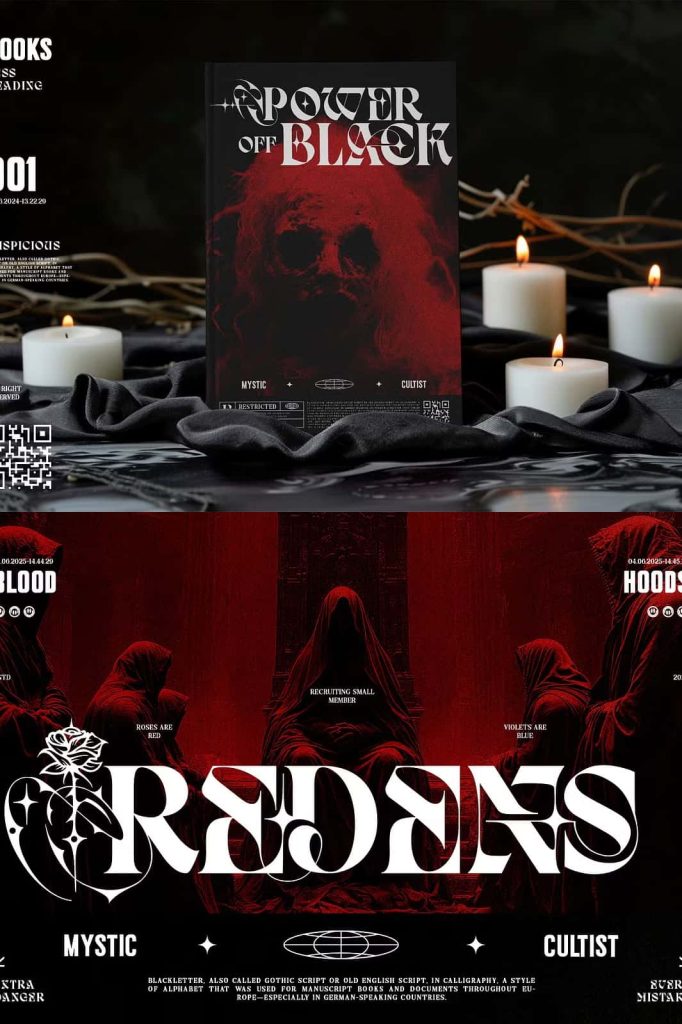
Dark Reborn Typeface
The Dark Reborn typeface introduces a striking fusion of Gothic heritage and modern typographic elegance. Designed to capture the dramatic beauty of traditional Blackletter calligraphy while embracing contemporary design principles, Dark Reborn transforms classic lettering into a bold and versatile display typeface. This font carries a powerful visual presence that allows designers to create typography filled with character, intensity, and historical influence.
Created by Alit Design Studio, Dark Reborn represents a careful balance between tradition and innovation. The designers drew inspiration from centuries-old Gothic calligraphy and reinterpreted those historic forms with modern structure and clarity. The result is a serif–Blackletter hybrid that feels both timeless and contemporary, making it suitable for a wide range of creative applications.
Dark Reborn invites designers to explore a new dimension of typographic artistry. Instead of simply replicating historical lettering, the typeface reinvents it with bold strokes, refined proportions, and dramatic details that command attention.
A Typeface Inspired by Gothic Calligraphy
Gothic calligraphy has played a significant role in the history of typography. For centuries, scribes used Blackletter styles to write manuscripts, religious texts, and official documents across Europe. These letterforms developed distinctive characteristics, including sharp angles, dramatic contrasts, and decorative strokes.
The Dark Reborn typeface draws heavily from this rich typographic tradition. The designers studied historical Blackletter scripts and adapted their defining features into a modern font structure. By combining Gothic elements with serif typography, they created a typeface that feels authentic while remaining practical for contemporary design work.
This approach allows Dark Reborn to preserve the emotional depth and historical character of Gothic lettering while introducing smoother readability and balanced proportions. Designers can therefore use the font in modern design environments without losing the dramatic essence that makes Blackletter styles so captivating.
A Bold Hybrid of Serif and Blackletter Design
What makes Dark Reborn truly distinctive is its hybrid design. The font blends the structured clarity of serif typography with the expressive energy of Blackletter forms. This combination produces letterforms that feel powerful, elegant, and highly decorative at the same time.
Traditional Blackletter fonts sometimes appear too complex or rigid for modern layouts. Dark Reborn addresses this challenge by refining the shapes and adjusting the spacing between characters. These refinements improve readability while maintaining the strong personality associated with Gothic lettering.
The serif influence also introduces subtle balance into the design. The letterforms maintain the dramatic vertical strokes typical of Gothic scripts, but the refined serif details help guide the eye smoothly across the text. This thoughtful integration makes the font both visually impressive and practical for contemporary typography.
Designed for Dramatic Display Typography
The Dark Reborn typeface works best as a display font where its dramatic details can fully shine. Designers can use it to create striking titles, bold headlines, and memorable branding elements. Its distinctive shapes and high contrast allow it to stand out immediately within any composition.
Posters, album covers, book titles, and promotional graphics benefit greatly from the font’s strong personality. Dark Reborn communicates intensity and sophistication, making it especially effective in projects that require a bold visual identity.
The typeface also performs well in editorial layouts where designers want to introduce dramatic typographic accents. Even short phrases gain visual weight and artistic depth when rendered in Dark Reborn.
Bringing Historical Elegance into Modern Design
Dark Reborn succeeds because it bridges two distinct design worlds. On one hand, it celebrates the beauty of historic Gothic calligraphy. On the other hand, it embraces modern typography by improving structure, spacing, and usability.
This dual identity allows designers to create projects that feel both classic and contemporary. A brand can communicate heritage and sophistication while still appearing modern and relevant. The font’s bold character also helps establish strong visual storytelling in creative projects.
Designers often look for typefaces that convey emotion and identity through their shapes. Dark Reborn delivers this by combining sharp Gothic energy with elegant serif refinement. Each letter contributes to a powerful typographic voice that demands attention.
Ideal Uses for the Dark Reborn Typeface
The Dark Reborn typeface suits a wide range of creative applications, especially projects that benefit from dramatic and expressive typography. Designers frequently use it for posters, music album artwork, book covers, gaming graphics, editorial headlines, and bold branding concepts.
It also fits well within luxury branding, fashion design, and creative media where visual identity plays a central role. The typeface helps establish a distinctive mood that blends historical influence with modern sophistication.
By combining Gothic tradition with contemporary elegance, Dark Reborn opens new possibilities for designers who want typography that feels powerful, artistic, and unforgettable. Its bold serif–Blackletter fusion ensures that every design stands out with authority and style.